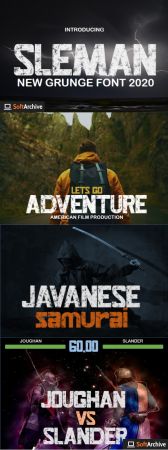
Sleman is an incredibly unique and bold display font, designed to easily become a true favorite. Whether it’s for web, print, moving images or anything else, it will look spectacular!